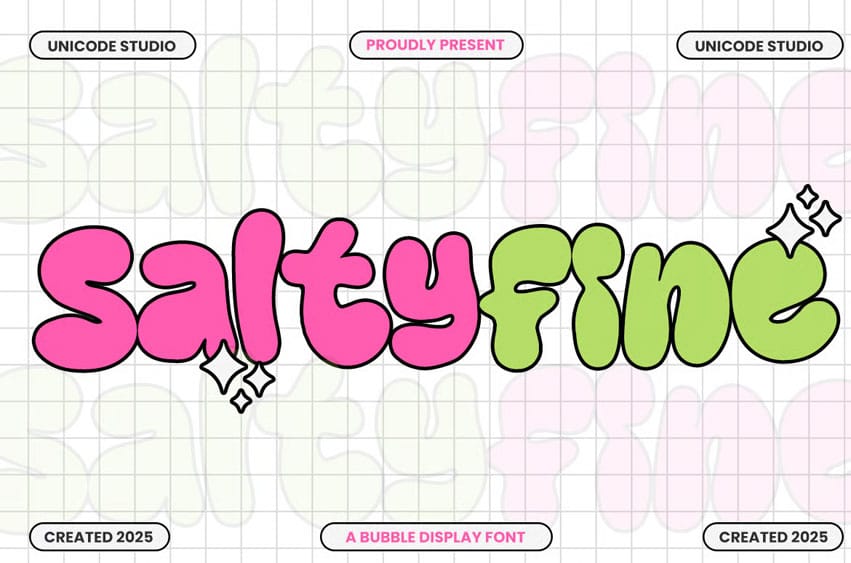
Saltyfine Font is a bold and bubbly display font created for fun, cute, and colorful visual projects. With soft, rounded edges and cartoon-style curves, this font delivers a cheerful and friendly character perfect for kids’ branding, playful packaging, social media graphics, posters, stickers, and creative merchandise.
Its retro bubble charm makes every title look vibrant, approachable, and full of personality. Ideal for designers who want a standout typeface that instantly grabs attention.
Ideal For
- Kids branding
- Cute packaging
- Social media posts
- Fun merchandise
- Posters & banners
- Retro and cartoon designs
- Logos & display titles
- Stickers and Kawaii-themed projects
Make your design shine with positive energy — choose Saltyfine, the bubbly font that brings creativity to life!